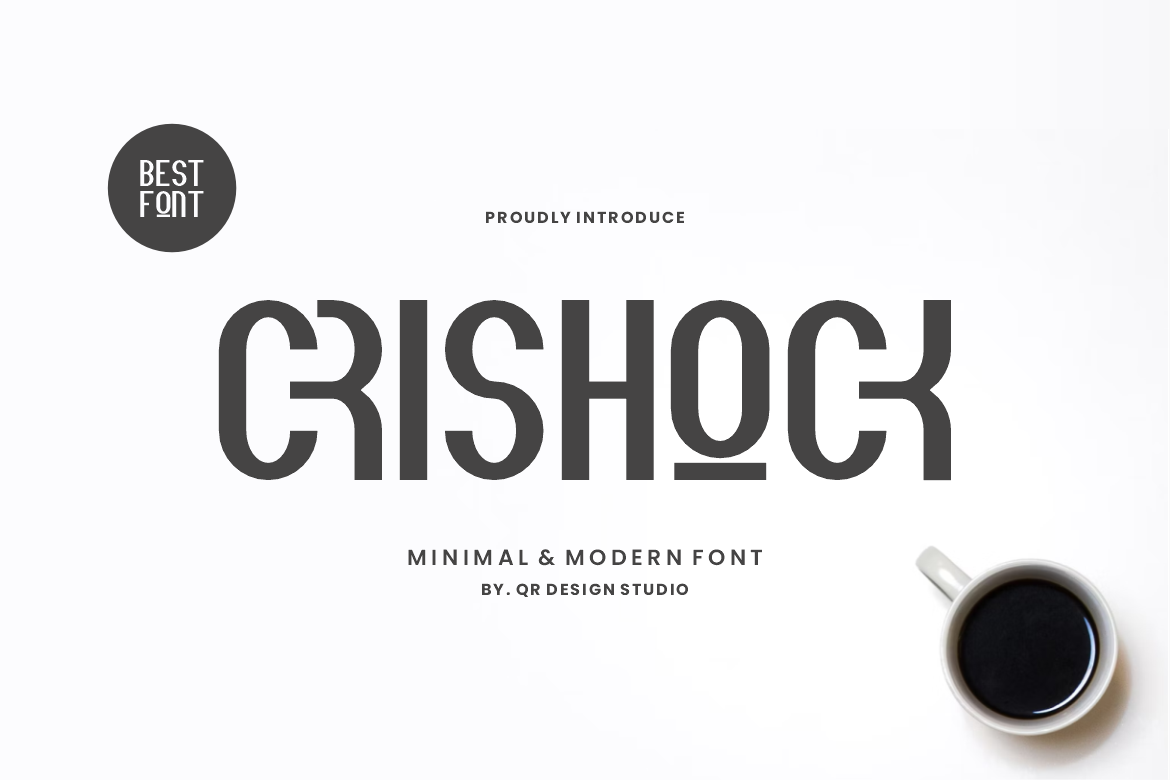
Crishock - Grotesk & Minimal Font
Crishock Font is a Minimal and authentic display font. The font is suitable for any branding project like poster, logo, sport, and many more. Outstanding in a wide range of contexts.